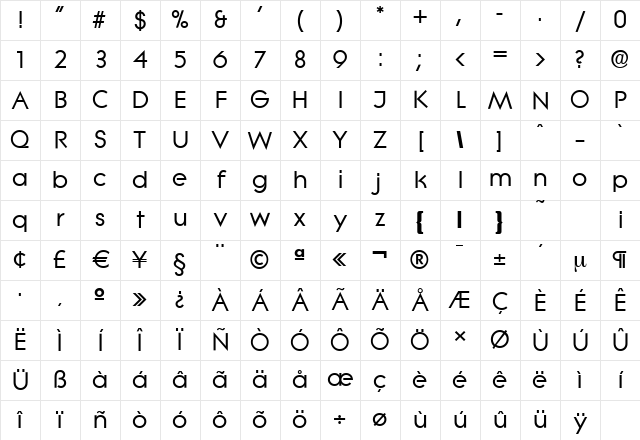
LiteraSerial Bold
Style: Bold
Foundry: SoftMaker Software GmbH
Designer: SoftMaker Software GmbH
Complete LiteraSerial Bold glyph index. Displaying only characters natively supported by LiteraSerial Bold font.
Design Context for LiteraSerial
LiteraSerial is a composed and adaptable typeface that performs quietly and consistently across a wide range of design contexts. Its bold stroke weight gives it real presence on the page.
Pro Tip: Use LiteraSerial in both headline and body roles to test its range before committing to a single application.